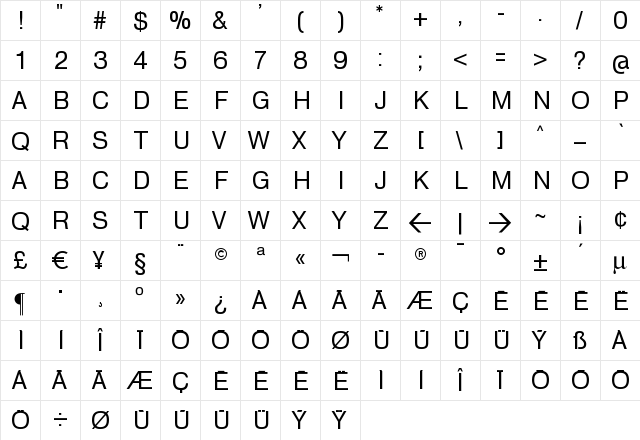
HeldustryFTVBasic Regular
Design Context for HeldustryFTVBasic Typeface
HeldustryFTVBasic is a composed and adaptable typeface that performs quietly and consistently across a wide range of design contexts.